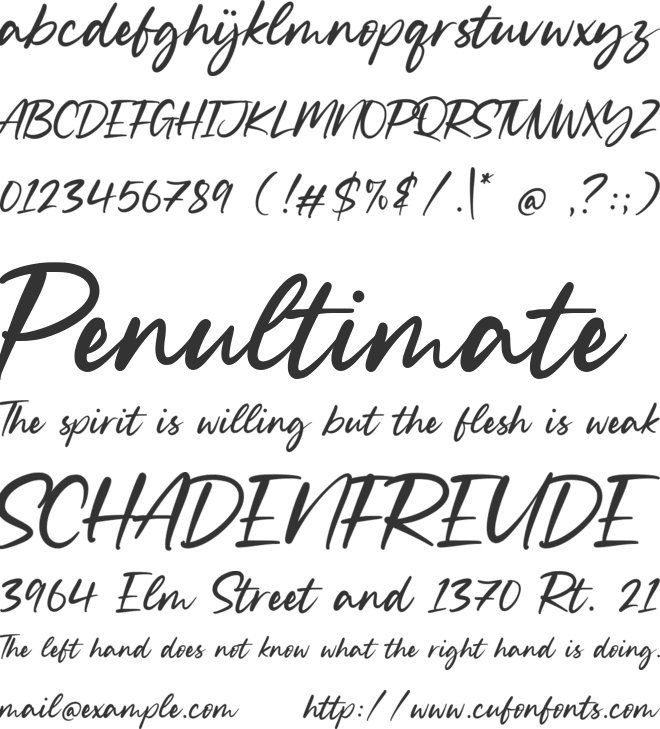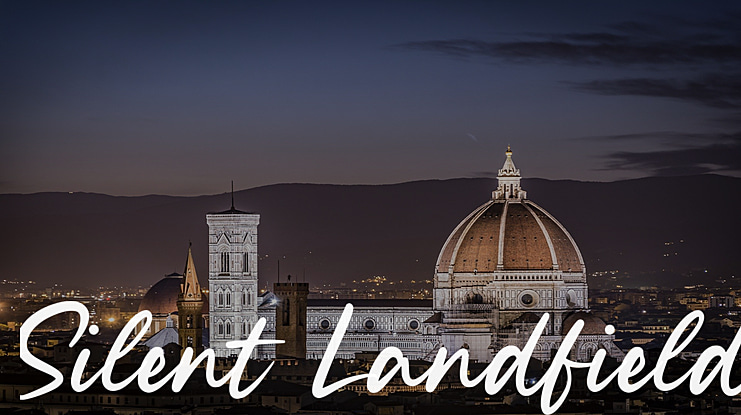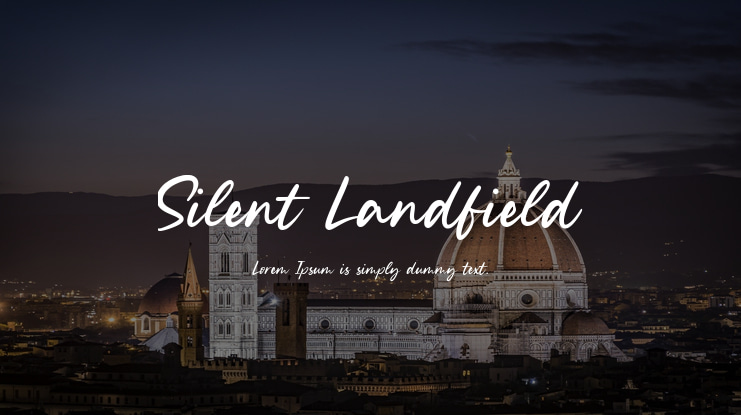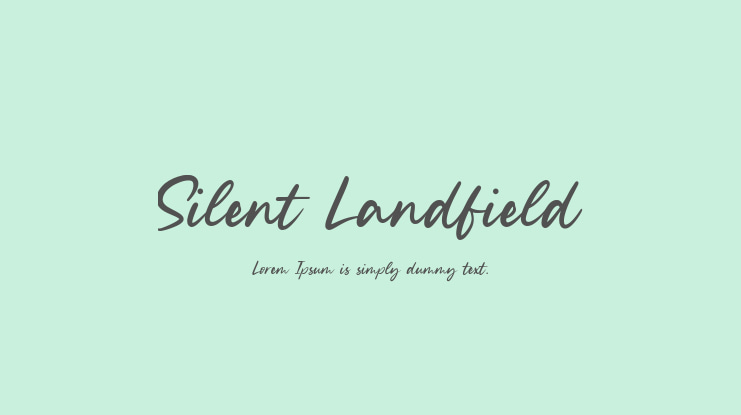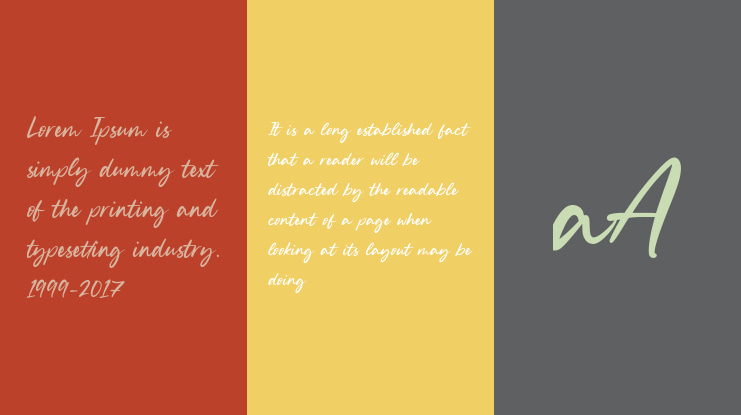
Silent Landfield Font
Letterative Studio
Introducing by Letterative Studio : Silent Landfield Font
Silent Landfield is a Modern Calligraphy Font
Silent Landfield is perfect for product packaging, branding project, megazine, social media, wedding, or just used to express words above the background.
Silent Landfield also multilingual support